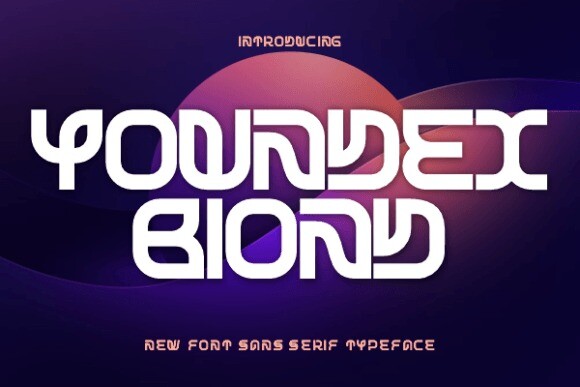
Youndex Biond Font
Designer: sinduamiw
Youndex Biond is a bold and powerful font, perfect for eye-catching designs. It works great for loud posters, bold quotes, and any design that needs to stand out with strong, cool letters.